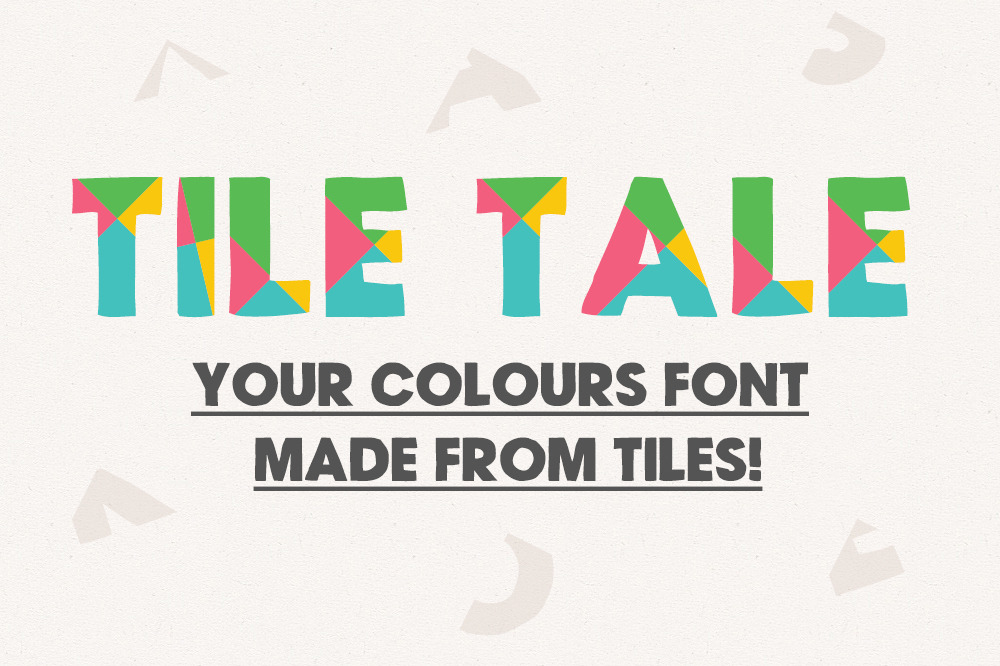
Hello! Let us introduce the Tile Tale Font System - a unique way to make your designs filled with colour power. Any sign is built from 4 different pieces you can fill with the colour you wish. All 4 pieces becomes one sign at the end!
What's included? • Tile Tale One (all in one piece) • Tile Tale Top (top side of the signs) • Tile Tale Right (right side of the signs) • Tile Tale Bottom (bottom side of the signs) • Tile Tale Left (left side of the signs)